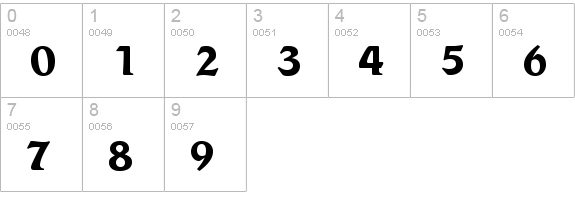
Romic Bold is a strong, high-contrast variant in the Romic typeface family \xE2\x80\x94 well suited to headlines, attention-grabbing titles, and strong calls-to-action.
Romic Bold is a stunning and versatile font that exudes elegance and sophistication. Its bold and distinctive letterforms make it perfect for creating eye-catching headlines, titles, and logos. The font's strong presence commands attention and leaves a lasting impression on any design project. What sets Romic Bold apart is not just its striking appearance, but also the fact that it is available for free download at FontsMarket.com. This means that designers and creatives can easily access this premium font without any cost, making it a valuable addition to their font library. Whether you're working on branding materials, posters, invitations, or any other creative project, Romic Bold is sure to elevate your design with its timeless style and unique character. Download Romic Bold today for free and unlock endless possibilities for your next design endeavor.